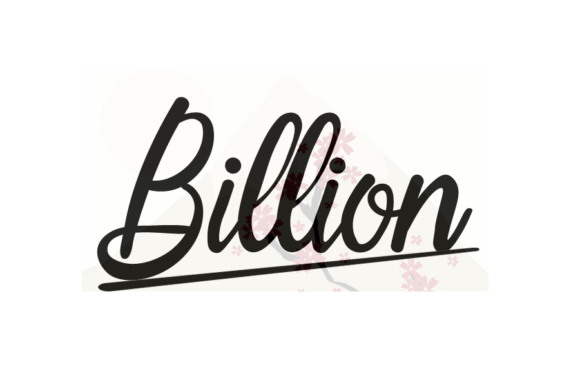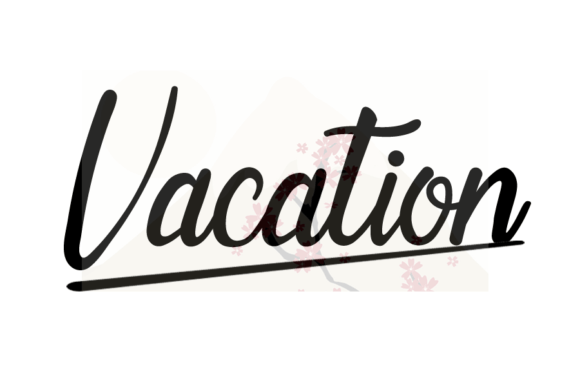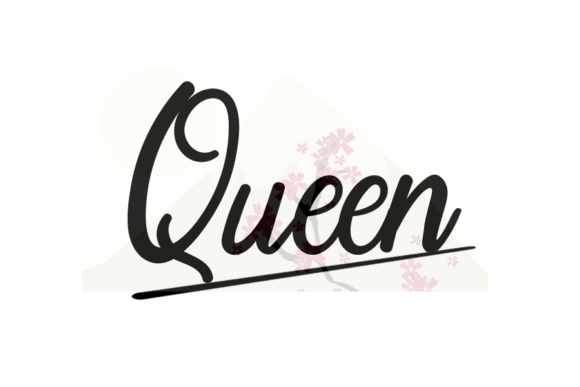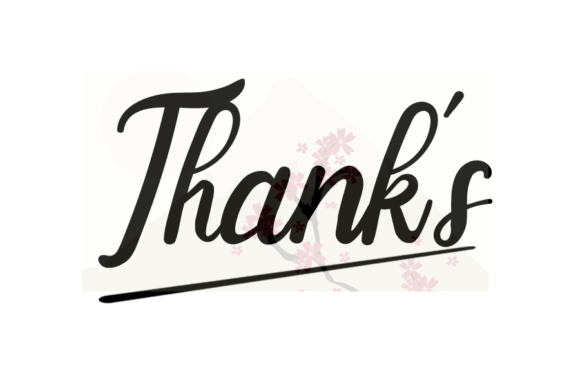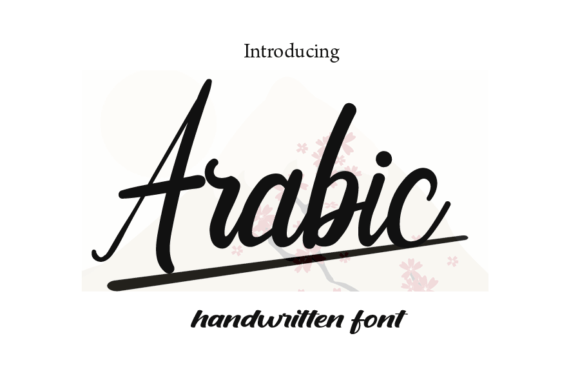
Arabic Font: A Timeless and Versatile Script for Creative Projects
Arabic font is a classic and simple handwritten script that has gained popularity among designers and crafters due to its unique and free-spirited style. This font is perfect for a wide range of creative projects, from logotypes and headlines to corporate identity, brand identity, and various design applications.
What is Arabic Font?
Arabic font is a type of handwritten script that is characterized by its simplicity, elegance, and randomness. It is a free-spirited font that is not too rigid or formal, making it perfect for designers who want to add a personal touch to their projects. The font has a distinctive and stylish look that sets it apart from other fonts, making it a great choice for those who want to create something unique and eye-catching.
Features of Arabic Font
Arabic font has several features that make it a popular choice among designers and crafters. Some of its key features include:
• Classic and Simple Design: Arabic font has a classic and simple design that makes it easy to read and understand.
• Handwritten Style: The font has a handwritten style that gives it a personal and unique touch.
• Free and Random Style: Arabic font is created in a free and random style, making it perfect for designers who want to add a creative twist to their projects.
• Versatile: The font is versatile and can be used for a wide range of creative projects, from logotypes and headlines to corporate identity, brand identity, and various design applications.
Uses of Arabic Font
Arabic font is a versatile font that can be used for a wide range of creative projects, including:
• Logotypes and Headlines: Arabic font is perfect for logotypes and headlines due to its bold and eye-catching design.
• Corporate Identity and Brand Identity: The font can be used for corporate identity and brand identity due to its professional and elegant look.
• Apparel Industry: Arabic font can be used for the apparel industry, including t-shirts, hoodies, and other clothing items.
• Posters and Flyers: The font is perfect for posters and flyers due to its bold and eye-catching design.
• Music and Movies: Arabic font can be used for music and movie projects, including album covers and movie posters.
• Games and Magazines: The font can be used for games and magazines due to its unique and stylish look.
• Books and Comics: Arabic font can be used for books and comics due to its readability and elegance.
• Cartoons and YouTube: The font is perfect for cartoons and YouTube videos due to its playful and creative look.
• Instagram and Websites: Arabic font can be used for Instagram and websites due to its stylish and modern look.
Benefits of Using Arabic Font
Using Arabic font has several benefits, including:
• Unique and Eye-Catching Design: Arabic font has a unique and eye-catching design that sets it apart from other fonts.
• Versatility: The font is versatile and can be used for a wide range of creative projects.
• Elegance and Sophistication: Arabic font has an elegant and sophisticated look that makes it perfect for professional projects.
• Readability: The font is easy to read and understand, making it perfect for body text and headlines.
Arabic font is a classic and simple handwritten script that is perfect for designers and crafters who want to add a personal touch to their projects. Its unique and eye-catching design, versatility, elegance, and readability make it a great choice for a wide range of creative projects. Whether you’re working on a logotype, headline, corporate identity, brand identity, or any other design project, Arabic font is a great option to consider.